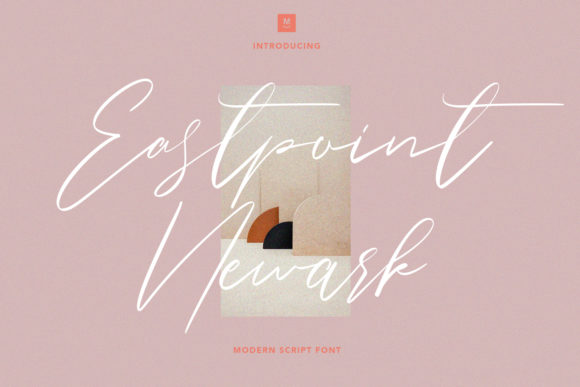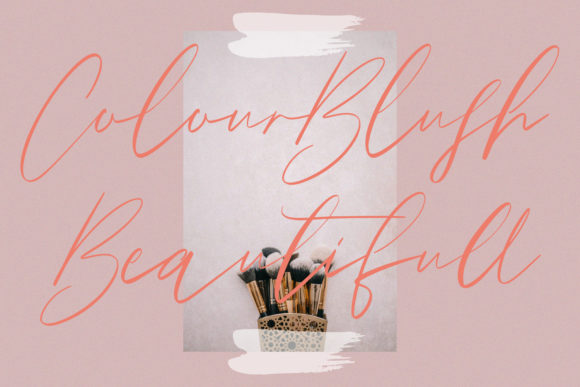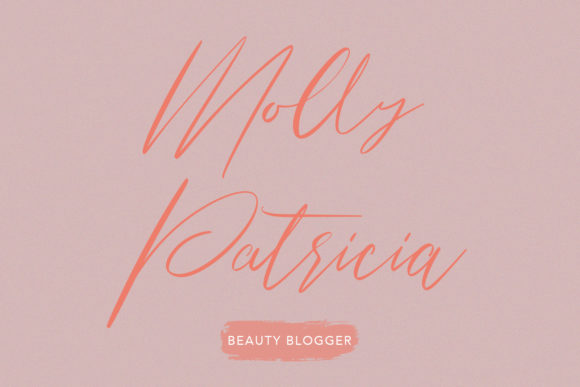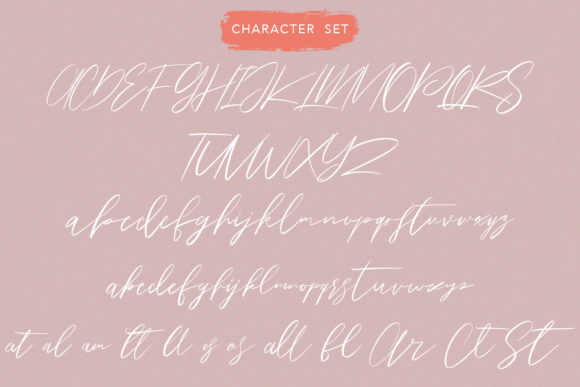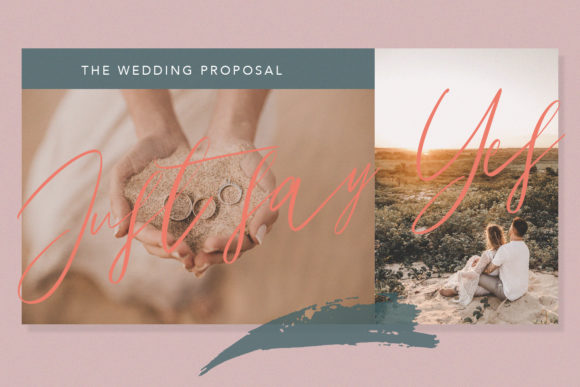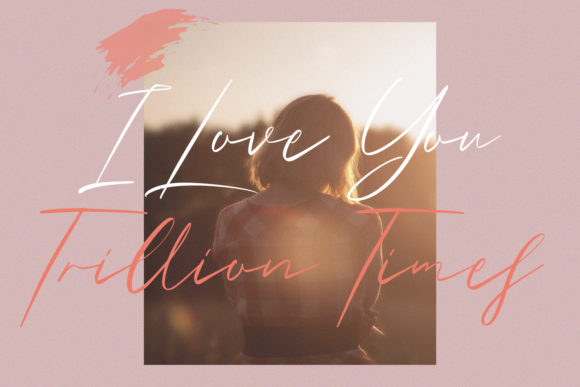
Introducing Eastpoint Newark: The Elegant Script Font for Modern Design
Are you looking for a font that exudes elegance and sophistication? Look no further than Eastpoint Newark, a beautiful script font that brings a touch of classic calligraphy to your modern design projects. With its balanced and varied strokes, Eastpoint Newark is the perfect choice for designers and crafters who want to add a level of refinement to their work.
The Inspiration Behind Eastpoint Newark
Eastpoint Newark is inspired by timeless classic calligraphy, with a contemporary twist that makes it perfect for modern design. The font’s creator aimed to strike a balance between traditional elegance and modern flair, resulting in a font that is both sophisticated and versatile. The result is a font that is not too thin and not too thick, but rather perfectly balanced to enhance the beauty of your projects.
Key Features of Eastpoint Newark
So, what makes Eastpoint Newark stand out from other script fonts? Here are some of its key features:
- Elegant and sophisticated: Eastpoint Newark is designed to add a touch of elegance to your projects, making it perfect for designs that require a level of refinement.
- Balanced and varied strokes: The font’s strokes are carefully crafted to be balanced and varied, creating a sense of movement and fluidity.
- Contemporary atmosphere: While Eastpoint Newark is inspired by classic calligraphy, it has a distinctly modern feel that makes it perfect for contemporary design.
- Impeccable form: The font’s form is impeccable, with careful attention paid to every detail to ensure that it looks beautiful in any context.
Uses for Eastpoint Newark
Eastpoint Newark is a versatile font that can be used in a wide range of design projects, including:
- Logos and branding: The font’s elegant and sophisticated feel makes it perfect for logos and branding projects that require a level of refinement.
- Wedding and event design: Eastpoint Newark is a popular choice for wedding and event design, adding a touch of elegance and sophistication to invitations, programs, and other materials.
- Packaging and product design: The font’s modern feel and impeccable form make it perfect for packaging and product design projects that require a level of sophistication.
- Digital design: Eastpoint Newark can be used in digital design projects, such as website headers, social media graphics, and more.
Why Choose Eastpoint Newark?
With so many script fonts on the market, why choose Eastpoint Newark? Here are just a few reasons:
- Unique and distinctive: Eastpoint Newark has a unique and distinctive feel that sets it apart from other script fonts.
- High-quality design: The font is designed with impeccable form and attention to detail, ensuring that it looks beautiful in any context.
- Versatile: Eastpoint Newark can be used in a wide range of design projects, from logos and branding to wedding and event design.
Eastpoint Newark is a beautiful and elegant script font that brings a touch of classic calligraphy to modern design. With its balanced and varied strokes, impeccable form, and contemporary atmosphere, it’s the perfect choice for designers and crafters who want to add a level of sophistication to their projects. Whether you’re working on a logo, wedding invitation, or packaging design, Eastpoint Newark is a versatile font that is sure to impress.